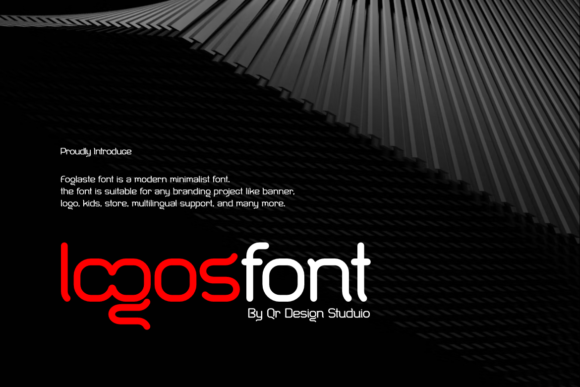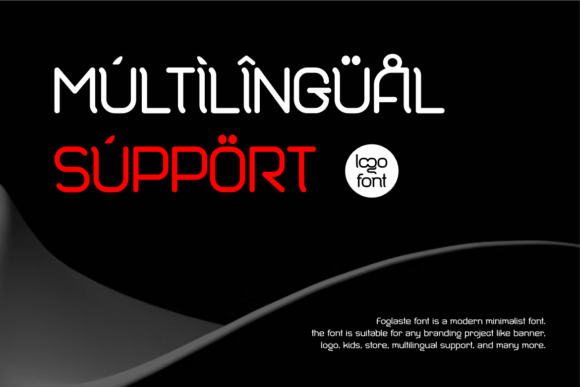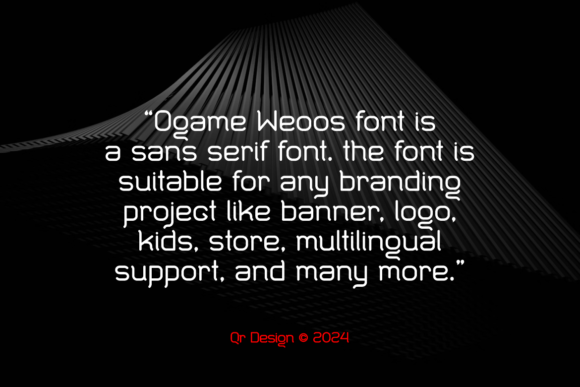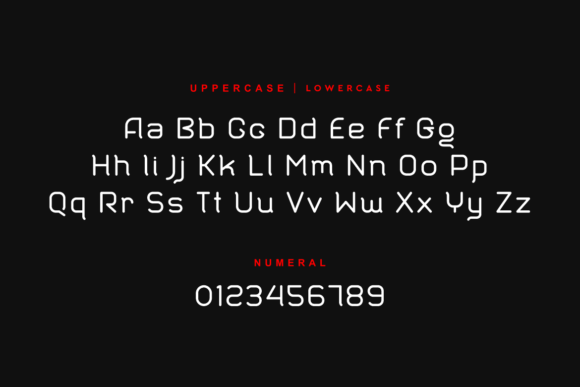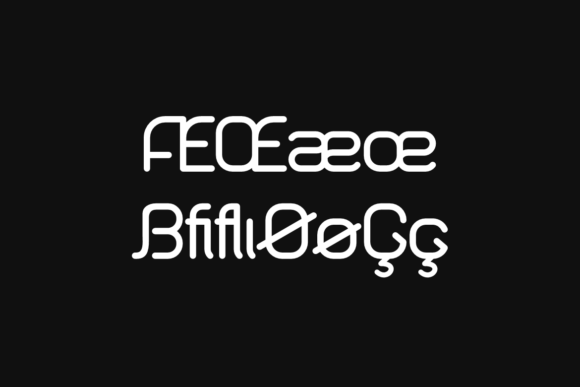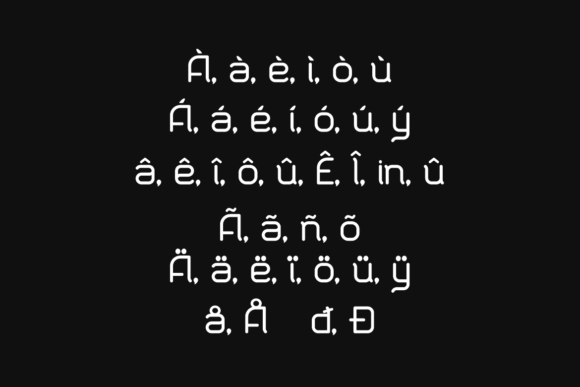
Foglaste Font: A Magical Sans Serif for Your Designs
Foglaste is an incredibly cool and unique sans serif font that has been making waves in the design community. With its modern yet whimsical style, it has the power to transport your designs into a magical world. In this article, we’ll dive into the features and benefits of Foglaste Font, and explore how it can elevate your creative projects.
What is Foglaste Font?
Foglaste Font is a sans serif font that boasts a distinctive and eye-catching style. Its clean lines and curves give it a modern feel, while its playful and quirky undertones add a touch of whimsy. This font is perfect for designers who want to add a dash of personality to their work.
Key Features of Foglaste Font
- Unique and Quirky Style: Foglaste Font has a one-of-a-kind design that sets it apart from other sans serif fonts. Its unusual letterforms and curves make it a standout choice for designers.
- Modern and Fresh Look: Despite its quirky undertones, Foglaste Font has a distinctly modern feel. Its clean lines and minimalist aesthetic make it perfect for contemporary designs.
- Highly Versatile: Foglaste Font can be used for a wide range of design projects, from branding and advertising to packaging and digital media.
- Easily Readable: Despite its unique style, Foglaste Font remains highly readable, even at small font sizes.
Benefits of Using Foglaste Font
So why should you choose Foglaste Font for your next design project? Here are just a few benefits of using this amazing font:
- Adds Personality to Your Designs: Foglaste Font’s quirky style injects personality and character into your designs, setting them apart from the crowd.
- Perfect for Branding and Advertising: Foglaste Font’s modern and fresh look makes it ideal for branding and advertising projects, where you want to make a bold statement.
- Great for Digital Media: Foglaste Font’s clean lines and minimalist aesthetic make it perfect for digital media, including websites, social media graphics, and more.
- Supports Multiple Languages: Foglaste Font supports multiple languages, making it a great choice for international design projects.
- Pair it with Other Fonts: Foglaste Font pairs well with other sans serif fonts, as well as script fonts and serif fonts.
- Experiment with Font Sizes: Foglaste Font looks great at a range of font sizes, from large headings to smaller body text.
- Play with Color: Foglaste Font’s clean lines and minimalist aesthetic make it a great choice for colorful designs.
Foglaste Font is an incredibly cool and unique sans serif font that has the power to transform your designs. With its modern yet whimsical style, it’s perfect for designers who want to add a dash of personality to their work. Whether you’re working on a branding project, advertising campaign, or digital media project, Foglaste Font is a great choice. So why not give it a try and see the magic for yourself?